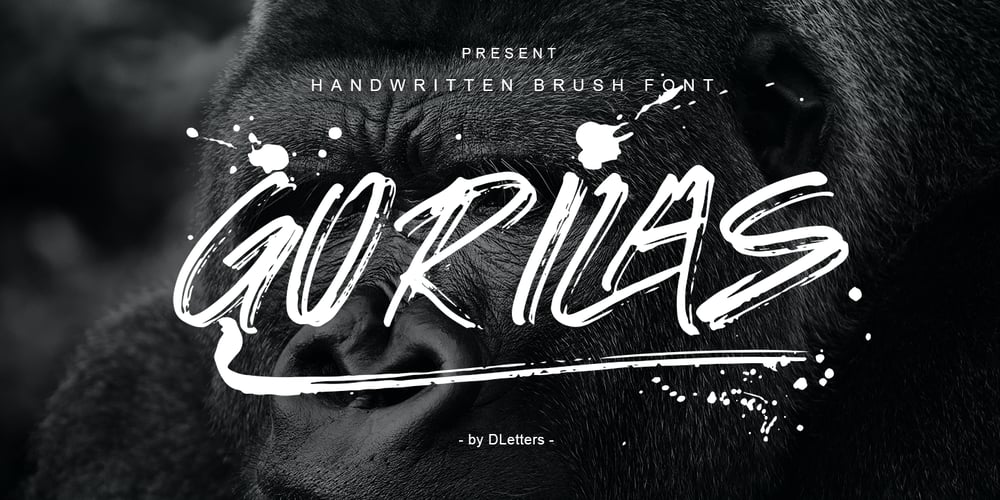
Gorilas
Gorilas font
Gorilas Font Family was designed by Diosi Julianto and published by DLetters Studio. Gorilas contains 1 styles and family package options. GORILAS Handbrush Font is a font with an available brushstroke style with a set of uppercase all with number and punctuation support, and Ligatures making this font perfect for your awesome project.